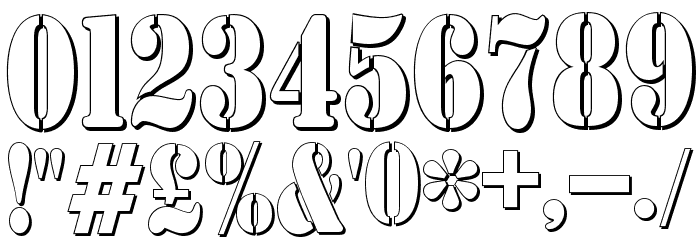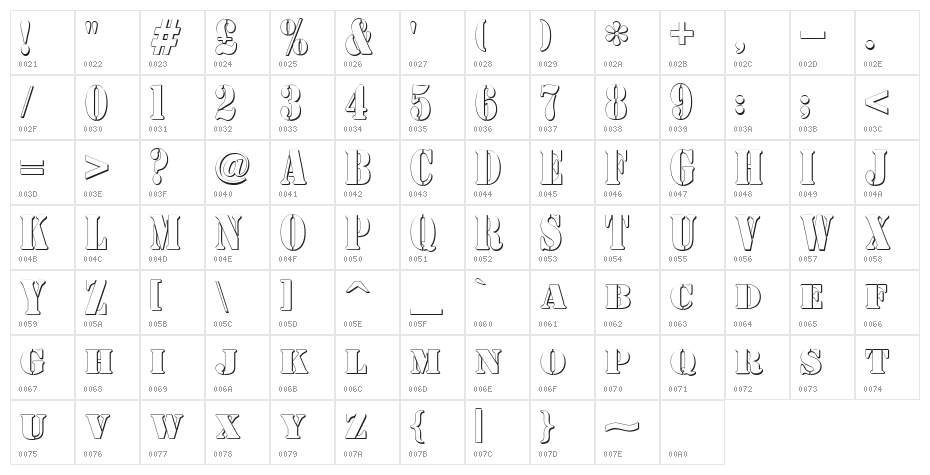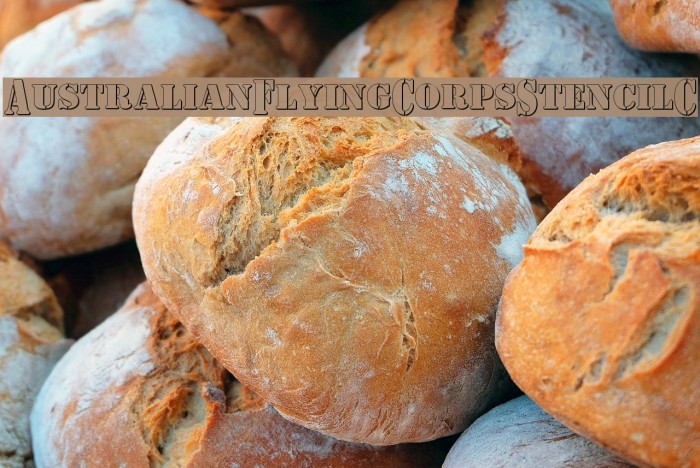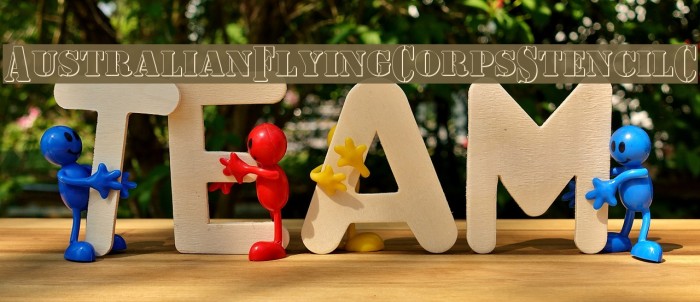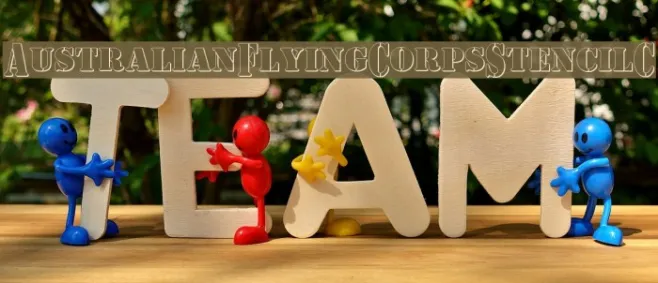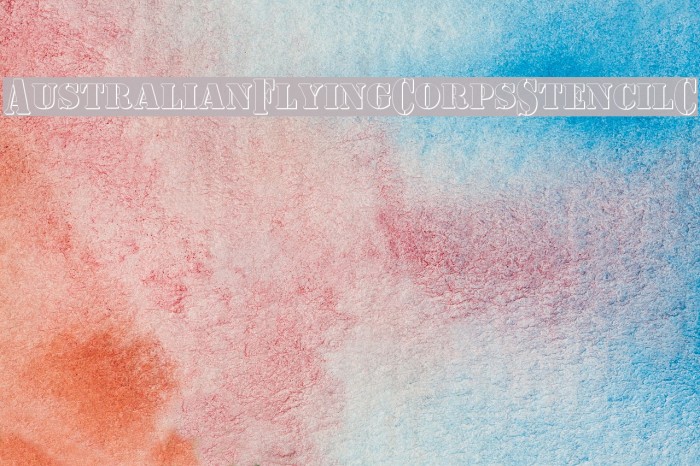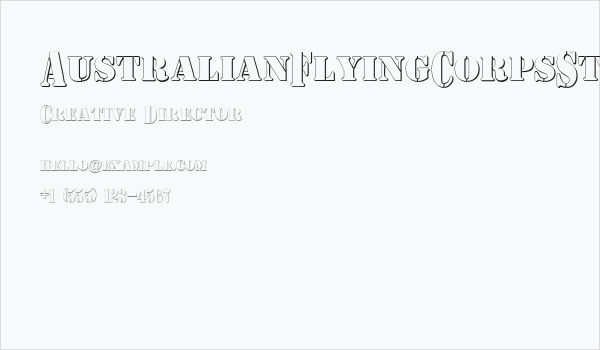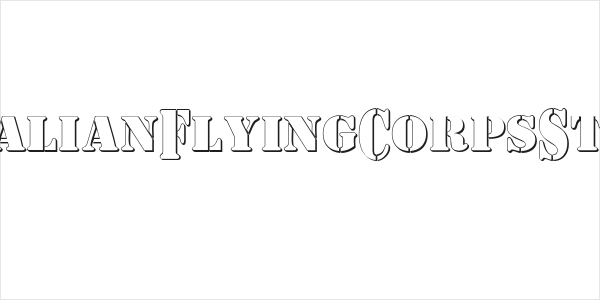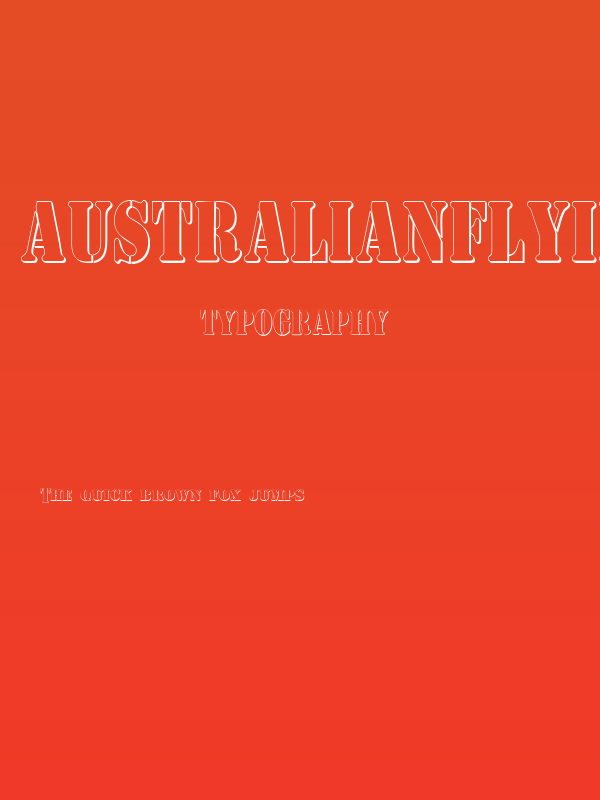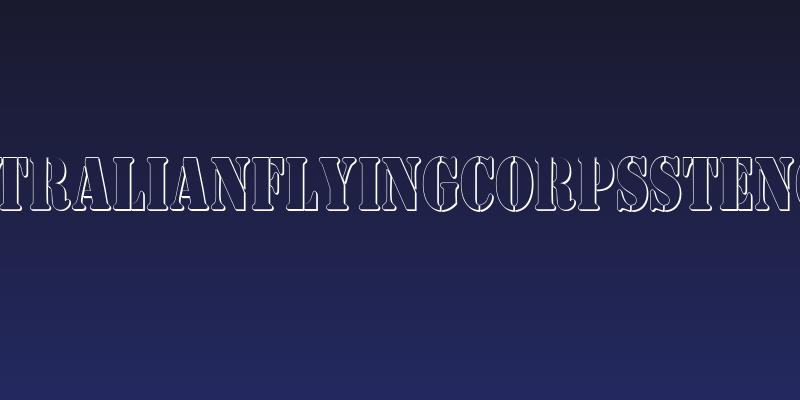
AustralianFlyingCorpsStencilC Font
AustralianFlyingCorpsStencilC Description
This font features a bold, stencil-like design with distinct cutouts in each character, creating a military or industrial feel. The uppercase letters are strong and commanding, with sharp edges and a uniform width, while the numbers and special characters maintain the same boldness and style. The font's design is reminiscent of classic stencil fonts used in military applications, offering a sense of authority and precision. Its clear and legible structure makes it suitable for impactful displays and signage.
| Overall Style | Industrial, Military |
| Use Case | Headlines, Signage, Posters |
| Proposed Projects | Ideal for military-themed designs, industrial branding, signage, and posters requiring a strong, authoritative presence. |